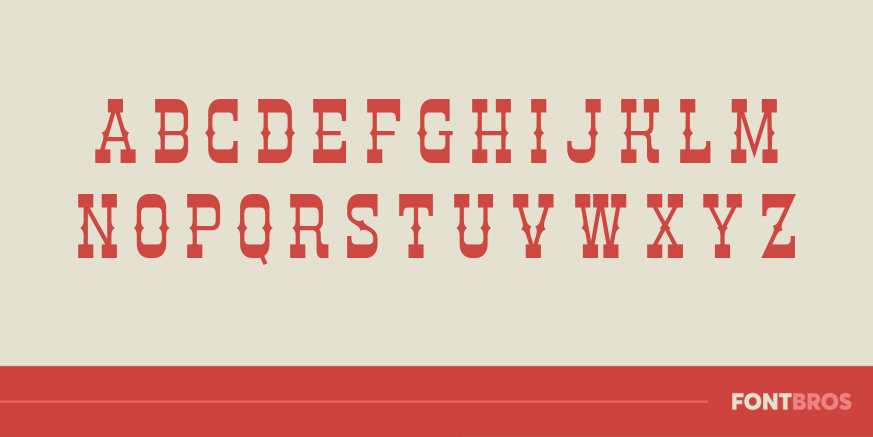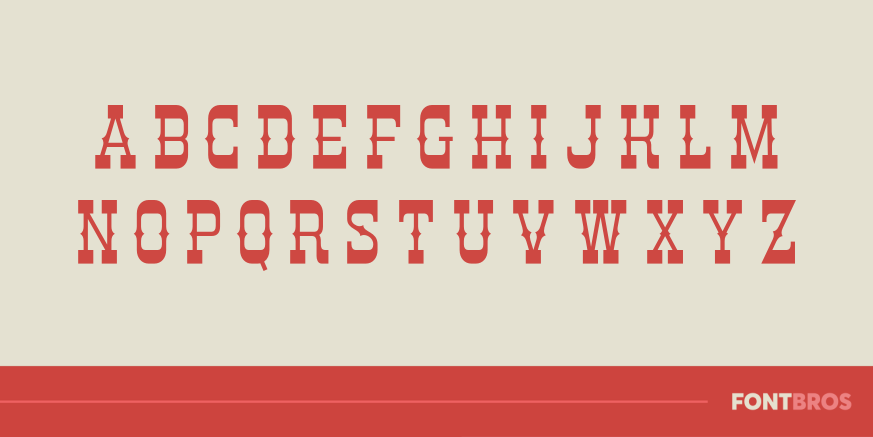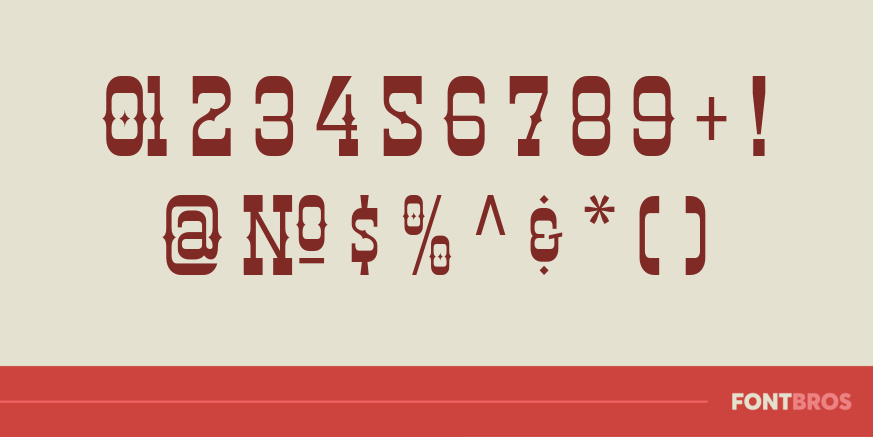
Country Store
Font Family by Font Diner
Country Store is a single-style serif display font with a fun, historical feel and a distinctly wacky edge. Its character leans nostalgic and eye-catching, making it a strong choice when you want type that feels a little old-timey, a little playful, and full of personality.
That special-effect styling gives it plenty of presence for packaging, posters, signage, themed branding, and other decorative display work where a straightforward serif would feel too plain. If you’re after a vintage-flavored look with humor and charm, this Font Diner design delivers a memorable storefront-style impression.